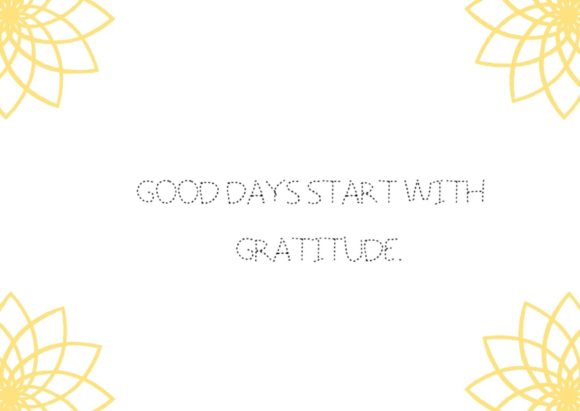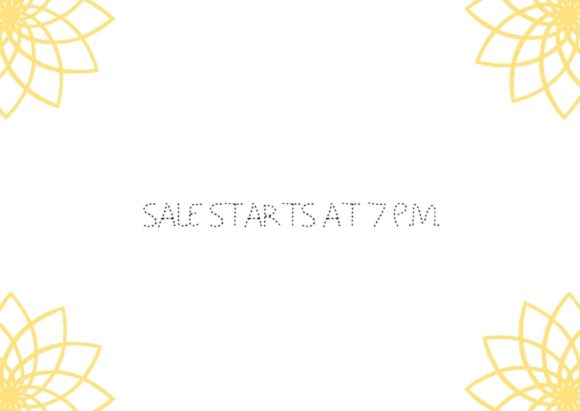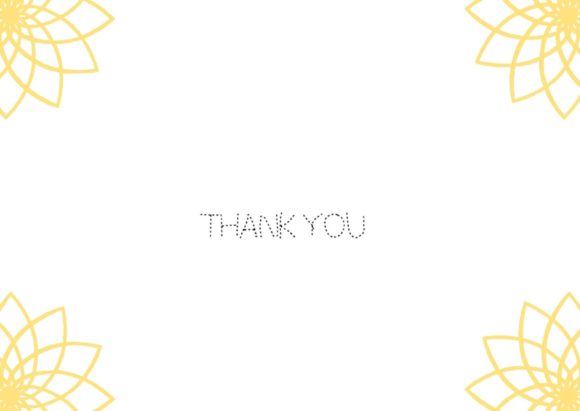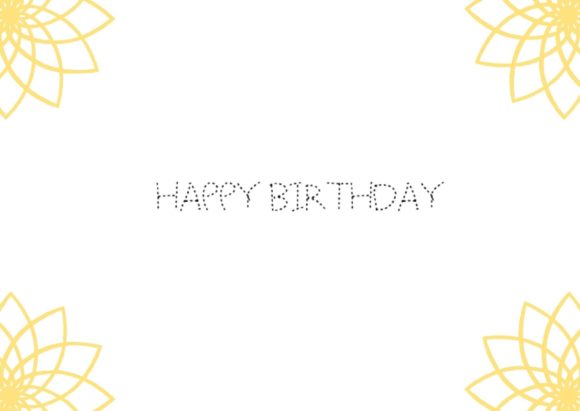
Introducing Dash Dotted Font: The Ultimate Decorative Font for Games and Kids’ Projects
Are you a designer or crafter looking for a font that can add a touch of fun and playfulness to your designs? Look no further than Dash Dotted Font! This cool and adaptable decorative font is perfect for a variety of designs related to games or children’s projects. In this article, we’ll explore the features and benefits of Dash Dotted Font, and show you how to use it to take your designs to the next level.
What is Dash Dotted Font?
Dash Dotted Font is a unique and eye-catching decorative font that features a dash-dotted pattern. The font is designed to be highly versatile and can be used for a wide range of design projects, from game graphics and children’s book illustrations to craft projects and DIY designs.
Key Features of Dash Dotted Font
- Unique and eye-catching design: The dash-dotted pattern of this font is sure to grab attention and add visual interest to your designs.
- Highly versatile: Dash Dotted Font can be used for a wide range of design projects, from games and kids’ projects to crafts and DIY designs.
- Scalable: Dash Dotted Font is designed to be scalable, so you can use it for projects of all sizes, from small icons to large posters.
Benefits of Using Dash Dotted Font
So why should you choose Dash Dotted Font for your designs? Here are just a few benefits of using this amazing font:
- Adds a touch of fun and playfulness: The dash-dotted pattern of this font is sure to add a touch of fun and playfulness to your designs, making them perfect for games and kids’ projects.
- Helps to create a cohesive look: Dash Dotted Font can be used consistently throughout your design to create a cohesive look and feel.
- Increases visual interest: The unique design of this font is sure to grab attention and add visual interest to your designs.
Endless Possibilities with Dash Dotted Font
Dash Dotted Font is a versatile font that can be used for a wide range of design projects. Here are just a few ideas to get you started:
- Game graphics: Use Dash Dotted Font to create fun and eye-catching graphics for games, such as logos, icons, and titles.
- Kids’ book illustrations: This font is perfect for kids’ book illustrations, adding a touch of fun and playfulness to your designs.
- Craft projects: Use Dash Dotted Font to create fun and colorful craft projects, such as signs, banners, and DIY decorations.
- DIY designs: This font is great for DIY designs, such as party decorations, gift tags, and other handmade projects.
In conclusion, Dash Dotted Font is a cool and adaptable decorative font that is perfect for a variety of designs related to games or children’s projects. With its unique and eye-catching design, highly versatile nature, and ease of use, this font is sure to become a favorite among designers and crafters. So why wait? Download Dash Dotted Font today and explore its endless possibilities!